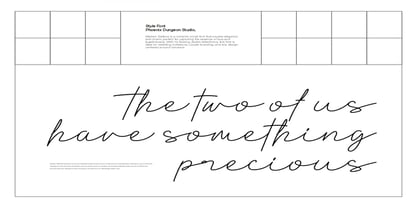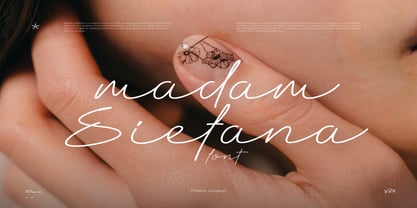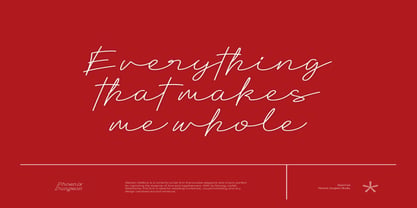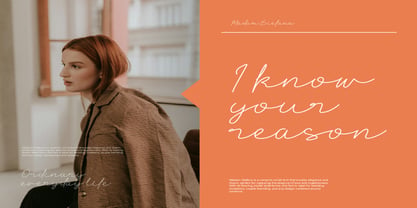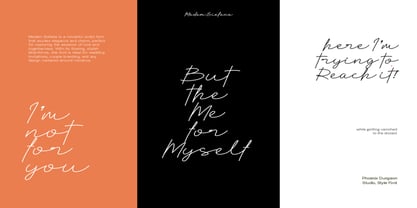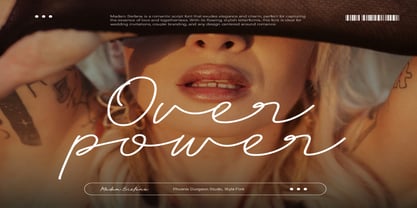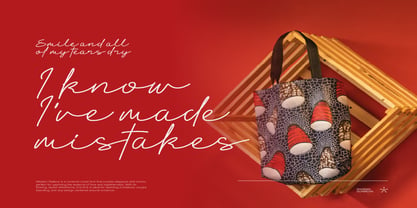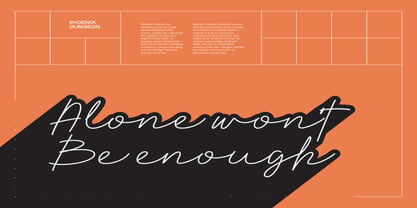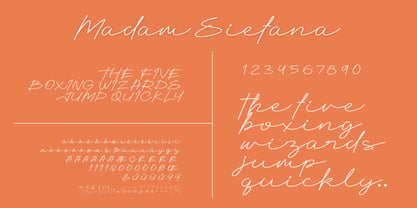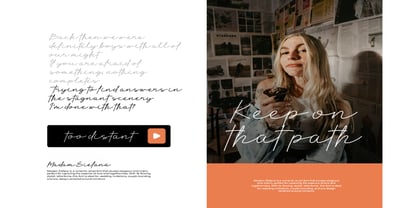
Madam Siefana
by Phoenix Group
The Madam Siefana Font Family was designed by Alif Naufal Muzakki and published by Phoenix Group. Madam Siefana contains 1 styles. More about this family
Madam Siefana is a romantic script font that combines elegance, charm, and a timeless handwritten touch. With its graceful curves and stylish flow, this font is ideal for wedding invitations, love letters, logos, branding, and any romantic design. Its modern yet classic look brings sophistication and intimacy, making it perfect for projects that need a delicate, feminine, and heartfelt aesthetic.
Designers: Alif Naufal Muzakki
Foundry: Phoenix Group